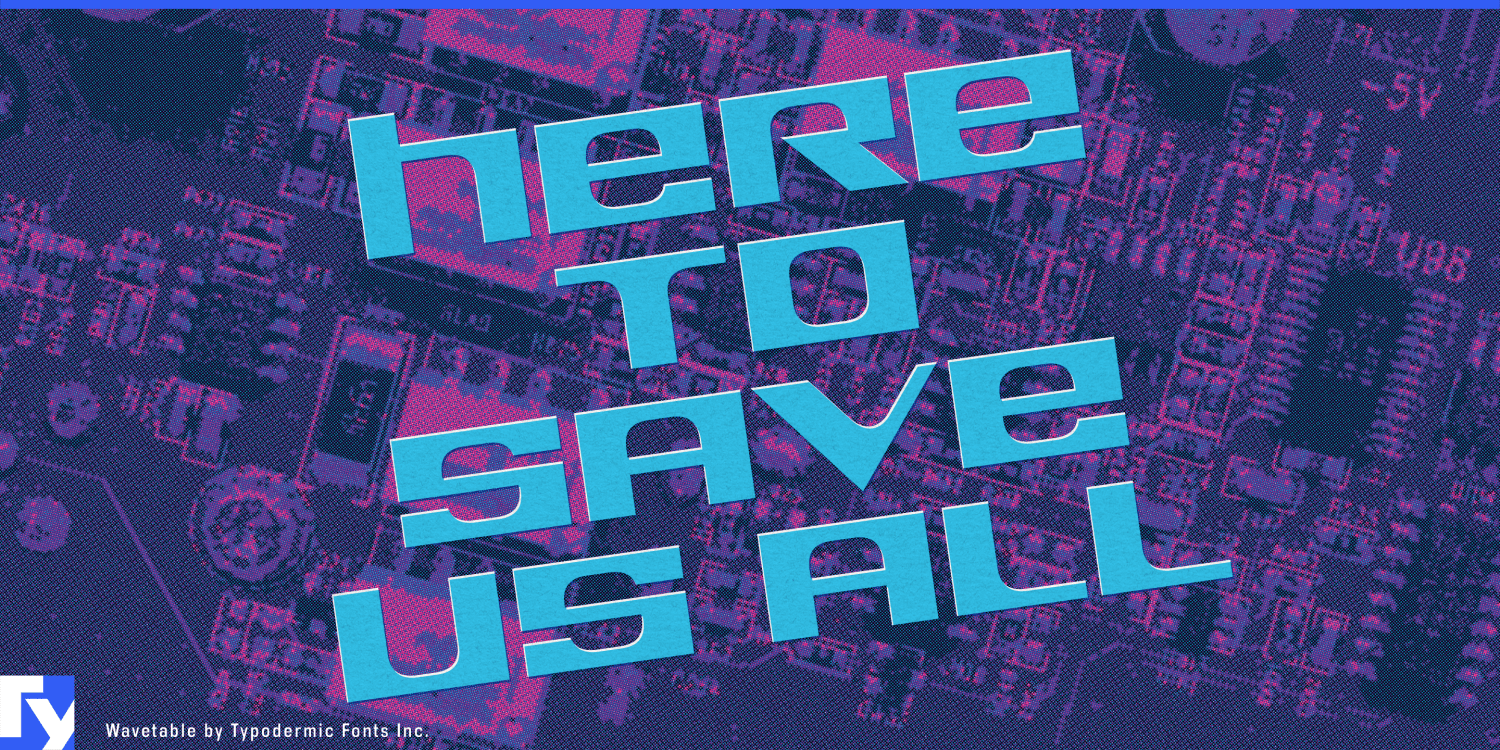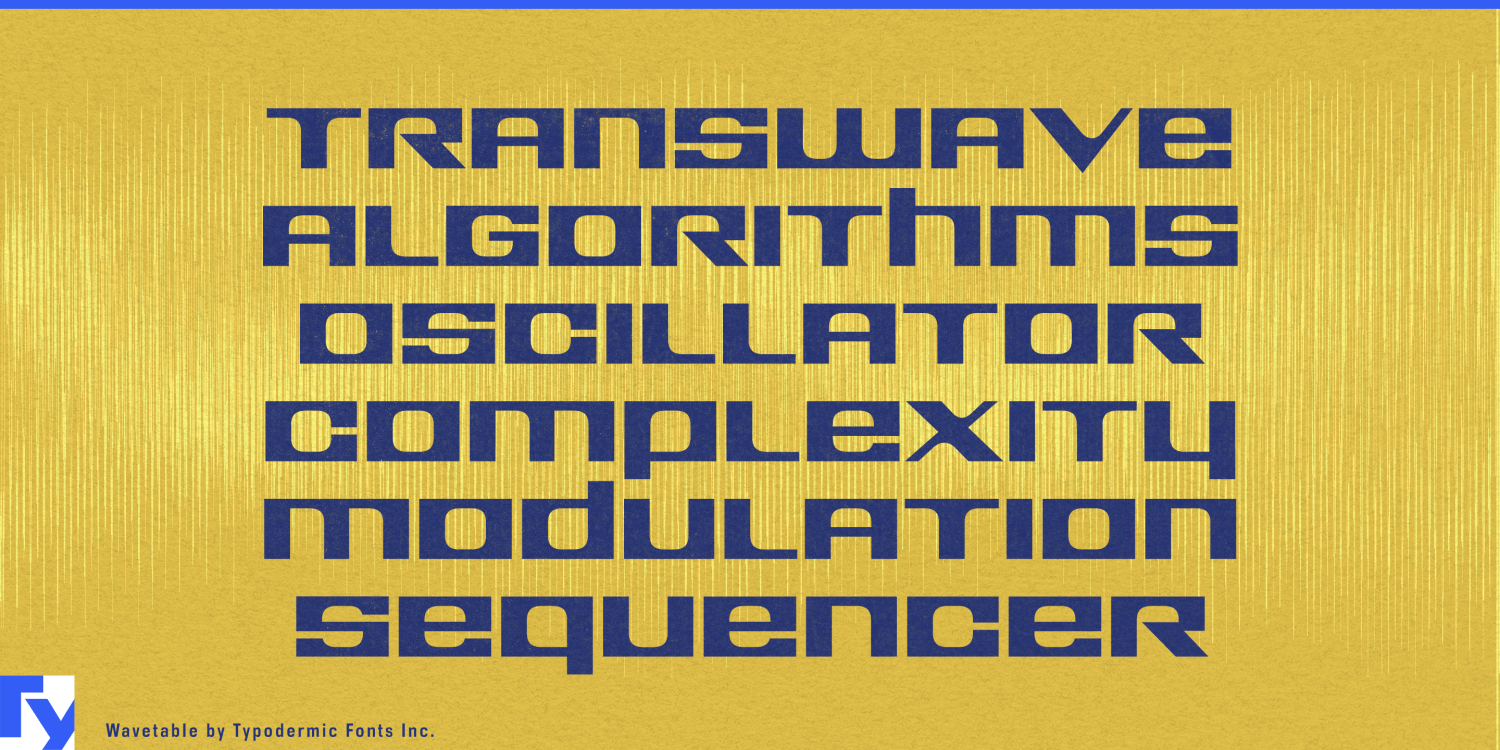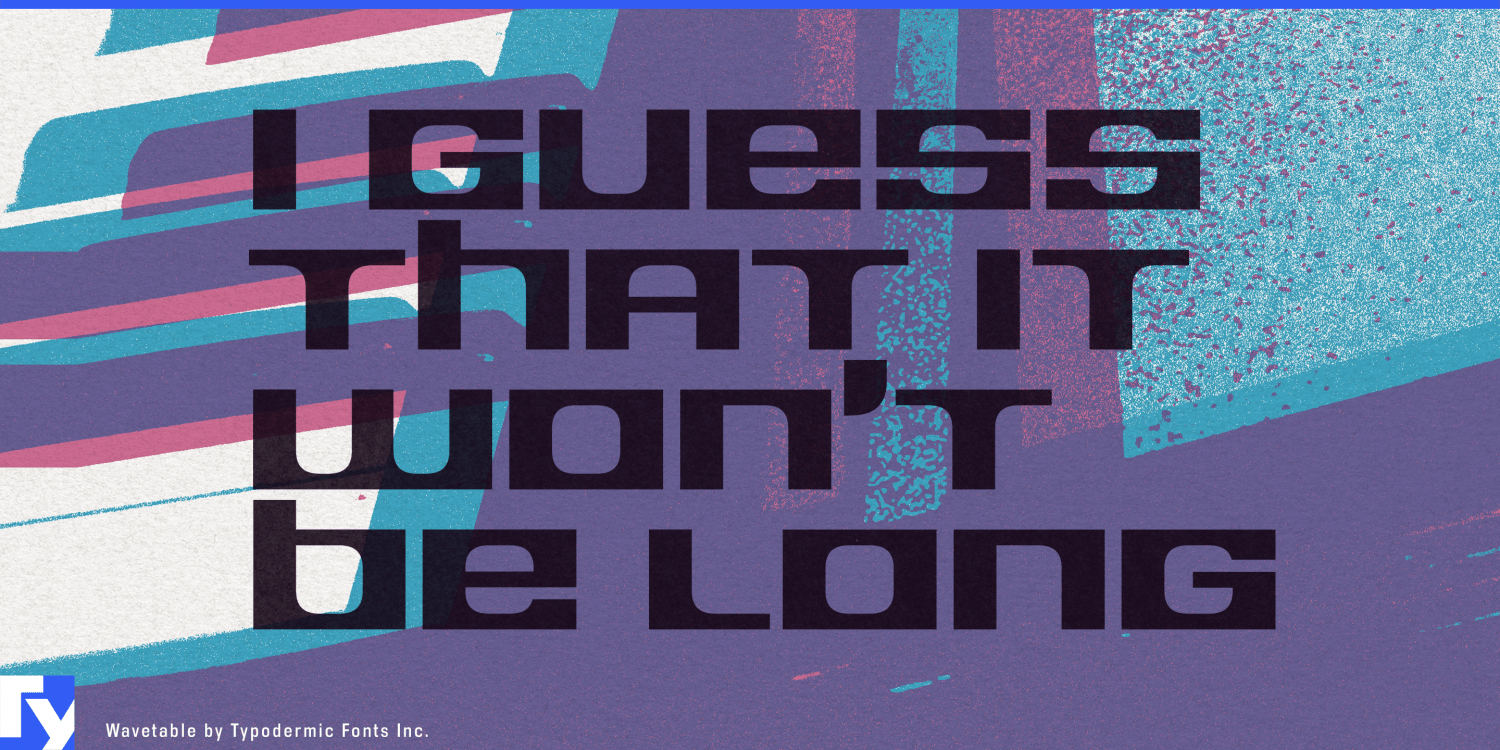
Wavetable: the typeface that cuts through visual noise like a perfectly tuned square wave. Just as square waves defined the sound of early synthesizers with their bold, uncompromising tones, this font redefines typography with its sharp, rectangular forms.…